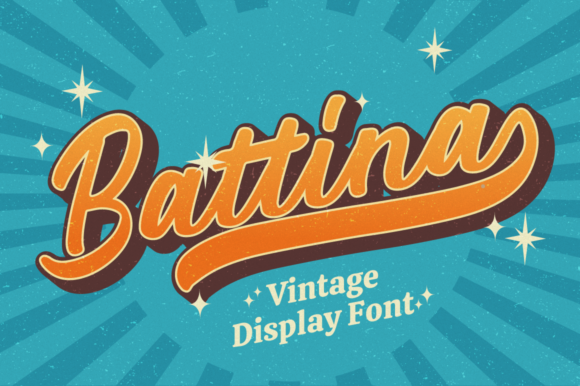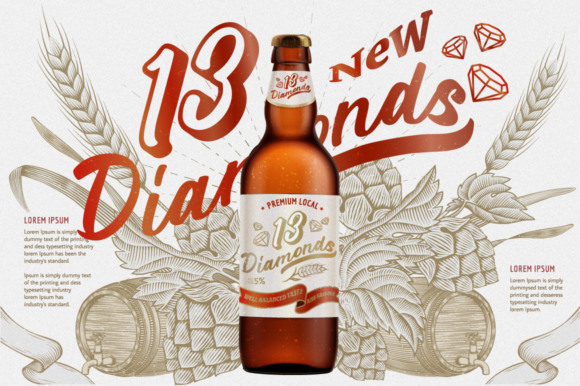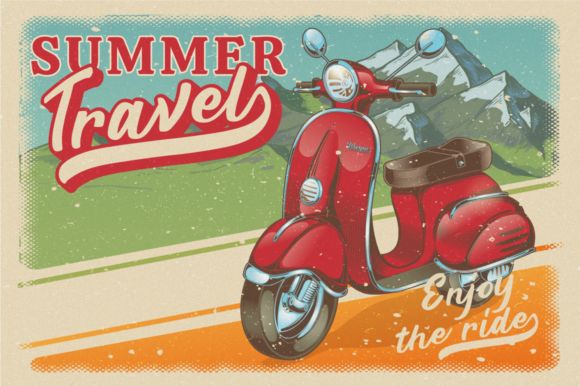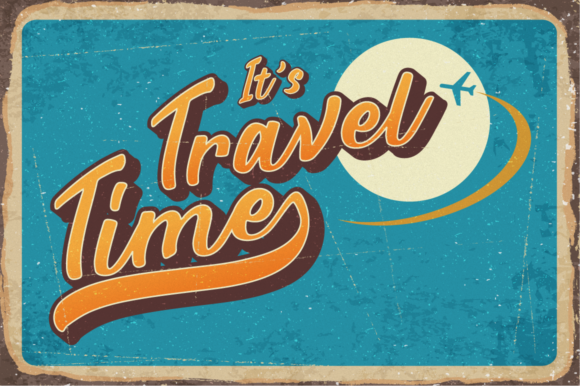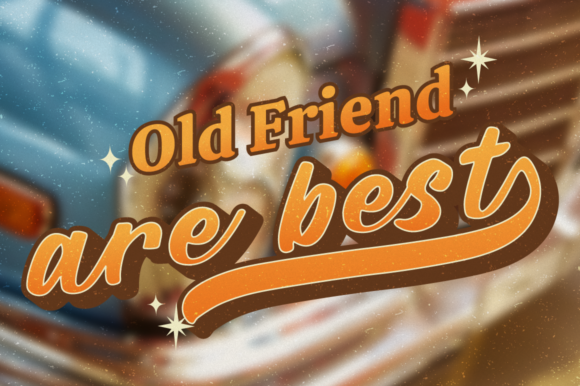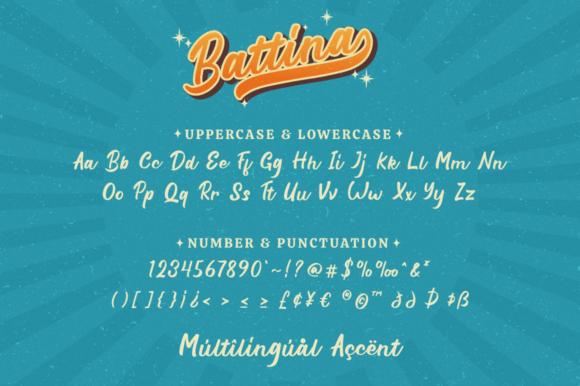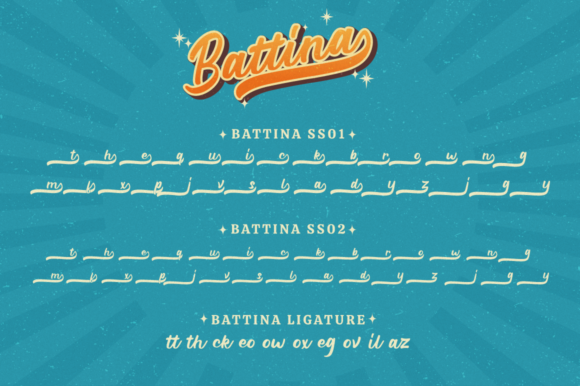
Adding a Touch of Nostalgia to Your Designs
Have you ever stumbled upon an old photograph or a vintage advertisement that sparks a creative idea? For designers, this moment is often the starting point of a new project. It’s when the past and present collide, and the possibilities become endless. For me, it was a dusty old sign from a 1950s diner that inspired me to experiment with a unique font that would transport my designs to a bygone era.
That’s how the Battina Font was born – a thick lettered and gorgeous handwritten font designed to give your headlines and logotype projects a retro touch. This font reads as strong, confident, and dynamic, and can add tons of nostalgic character to your designs. Whether you’re working on a branding project or a nostalgic-themed campaign, the Battina Font is a valuable addition to your design arsenal.
Battina Font Key Features
- Unique Characteristics: Battina Font features a unique blend of modern and vintage elements, giving it a distinctive and eye-catching appearance. The font’s bold lines and geometric shapes make it perfect for use in headlines and titles.
Battina Font Review
Initially, I was drawn to the Battina Font due to its unique aesthetic, which blends modernity with a touch of playfulness ✨. The font’s eclectic feel makes it perfect for branding projects that require a bold, eye-catching identity. I appreciate the Battina Font’s adaptability, as it works well in various settings, from digital displays to print materials.
However, I do have some concerns regarding the font’s legibility, particularly at smaller text sizes ✨. In some instances, the font’s irregularities can make it difficult to read, which might be a challenge for longer blocks of text. Additionally, the font’s weight range could be more extensive, offering more flexibility for designers.
Pros:
- Unique aesthetic that sets it apart from other fonts
- Adaptable for various design applications
- Effective for branding and creating bold identities
Cons:
- Legibility issues at smaller text sizes
- Limited weight range
Overall, the Battina Font is a great choice for designers who want to add a touch of personality to their projects ✨. While it may not be the best option for long blocks of text or applications where readability is paramount, it’s perfect for creating bold, eye-catching designs that stand out from the crowd.
Tips for Getting the Most Out of Battina Font
To get the most out of Battina font, use it for titles, headings, and other large text elements. You can also use it to create a unique and eye-catching visual identity for your brand. Experiment with different font sizes, styles, and colors to create a visually appealing design.
Common Use Cases for Battina Font
Battina font is commonly used for:
- Brand identities and logos
- Titles and headings
- Infographics and visualizations
- Marketing materials and advertisements